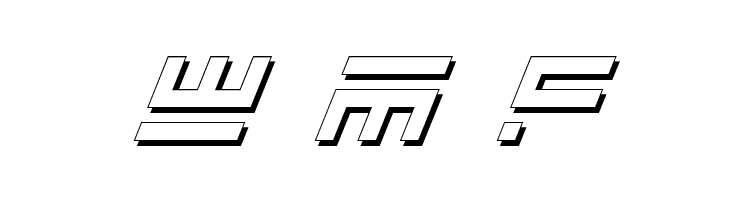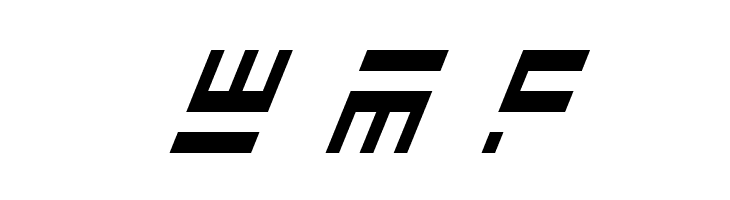
vtks morning rain 3D Font
A futuristic italic font with a shadow effect and geometric design.
A bold, geometric font with a futuristic and digital aesthetic.
A futuristic, geometric font with bold, angular shapes.
A futuristic, geometric font with a shadow effect and bold, angular lines.
A bold, italicized font with a futuristic, angular design.
A futuristic, geometric font with blocky, angular letterforms and a condensed style.
A futuristic, angular, and italicized font with a bold, condensed style.